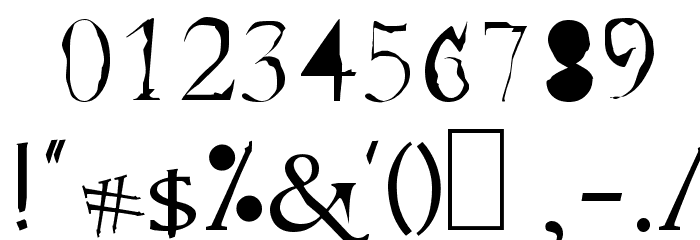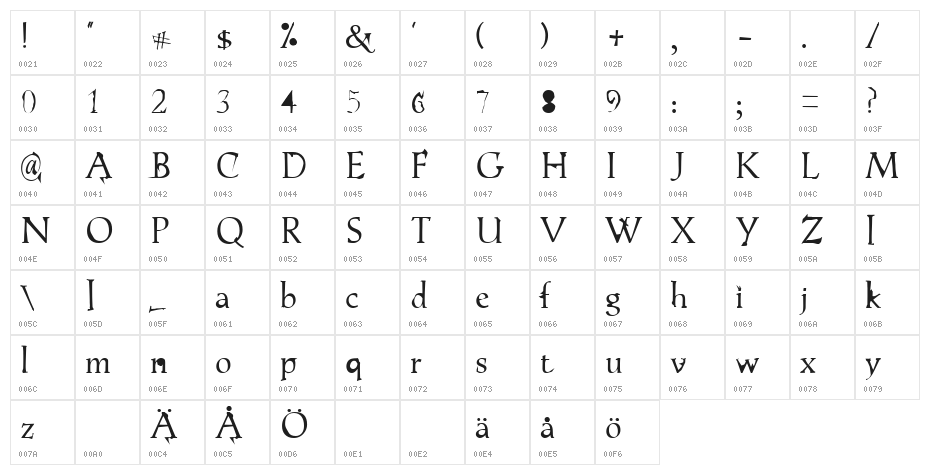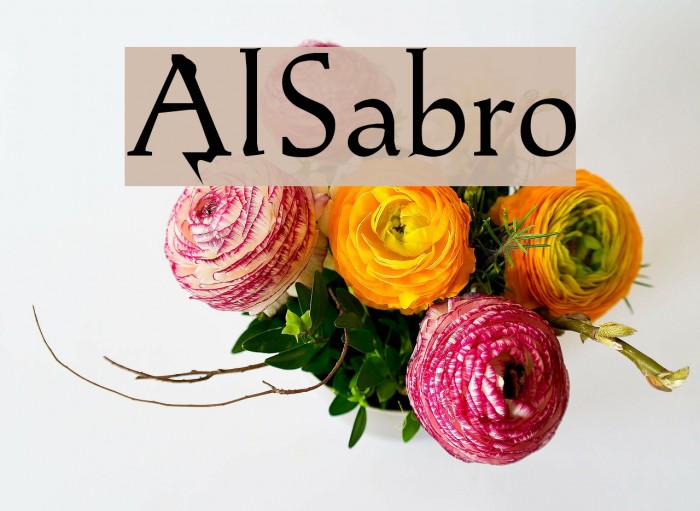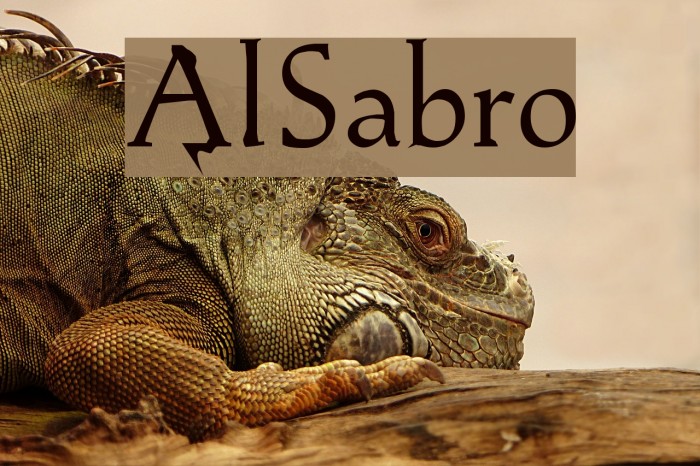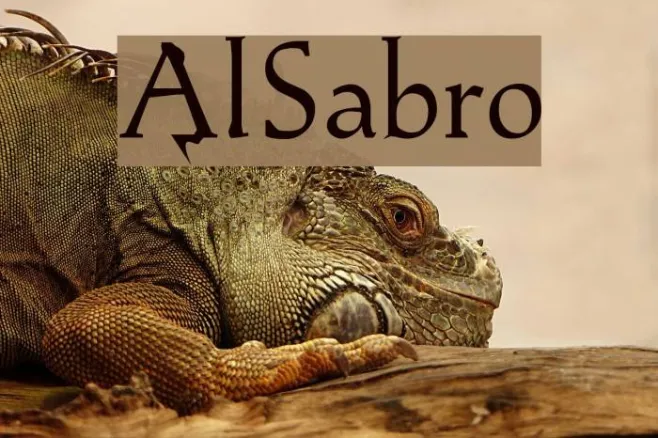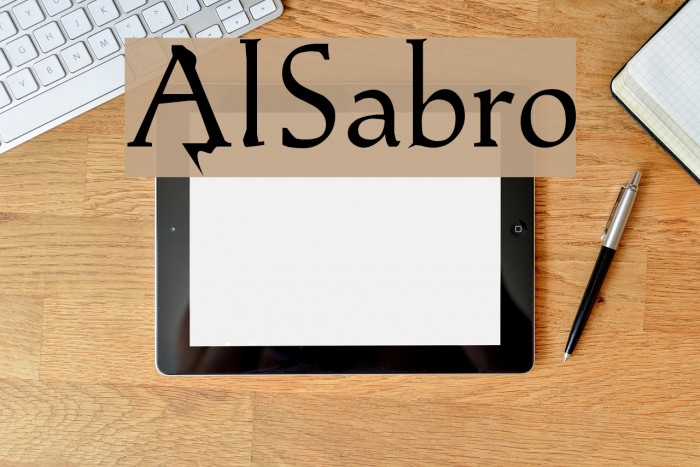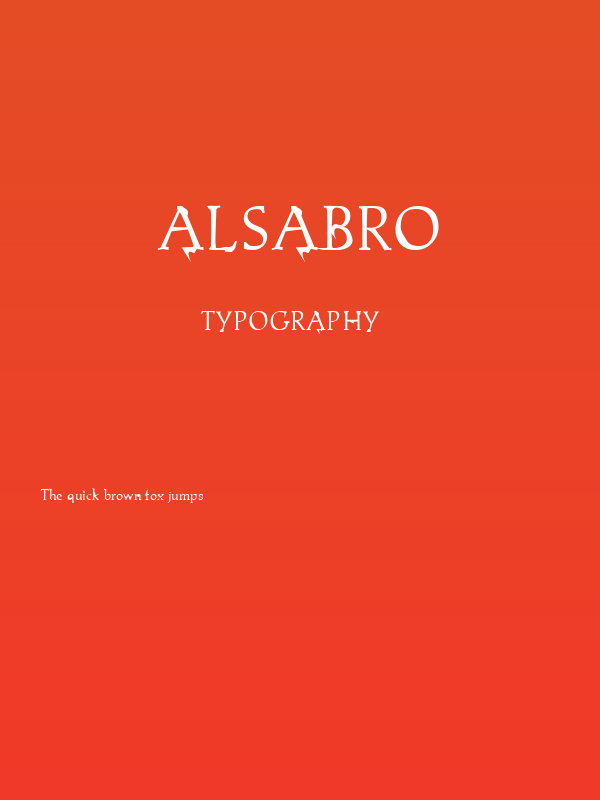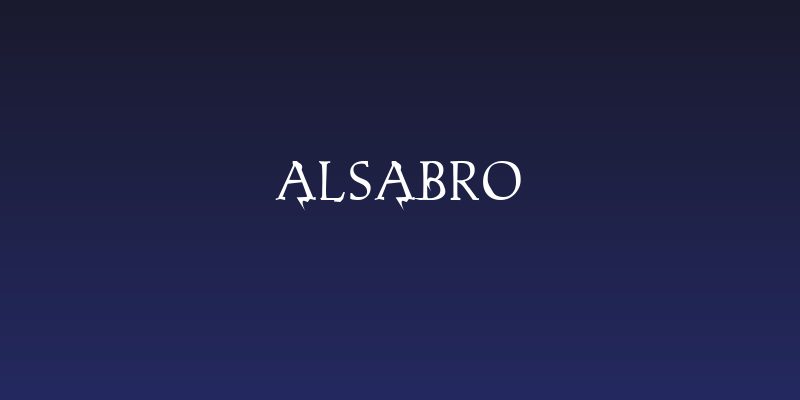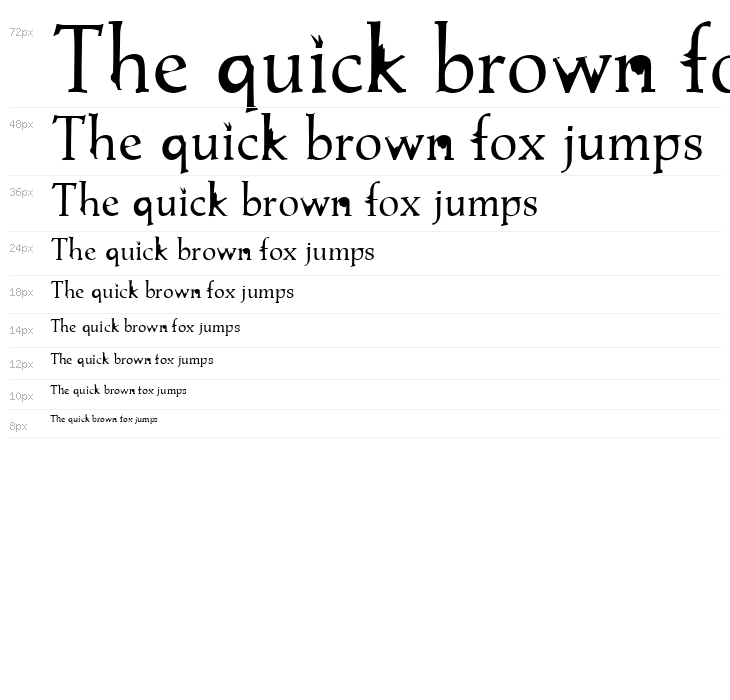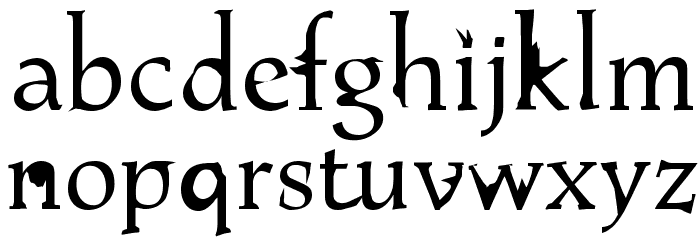
AlSabro Font
AlSabro Description
This font features a distinctive and artistic style, characterized by its sharp, angular serifs and a slightly irregular stroke pattern that gives it a hand-crafted appearance. The uppercase letters exhibit a strong presence with their bold and dramatic flair, while the lowercase letters maintain a consistent yet unique form, adding to the overall aesthetic. The numerals are equally stylized, with a playful yet sophisticated look. Special characters are creatively designed, enhancing the font's decorative appeal. This font is ideal for projects that require a touch of elegance and creativity, making it suitable for branding, posters, and artistic designs.
| Proposed Projects | Ideal for branding, posters, artistic designs, and any project needing a creative touch. |